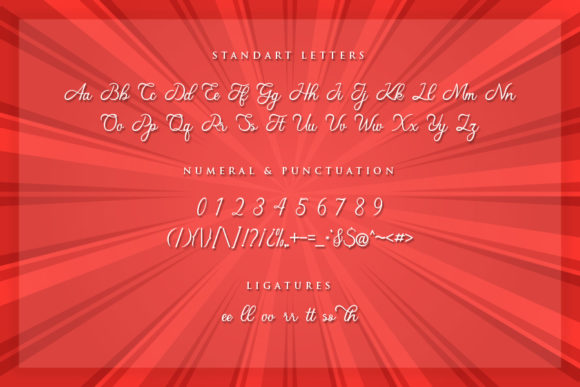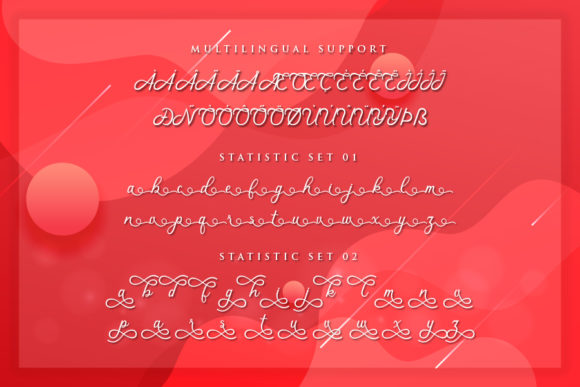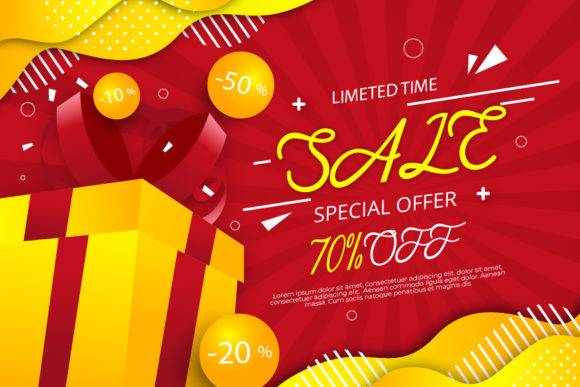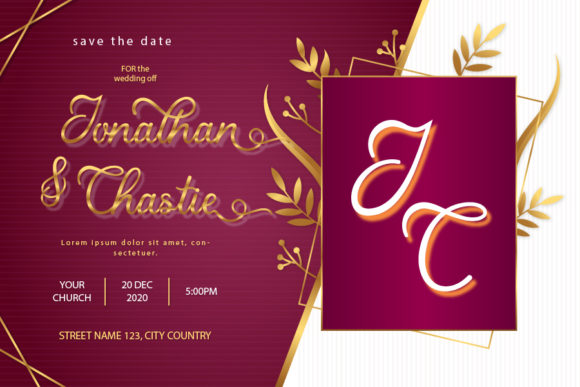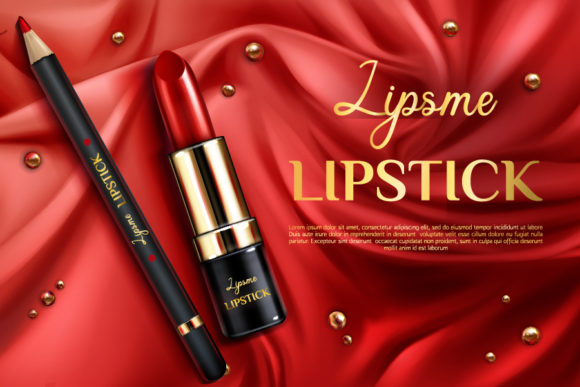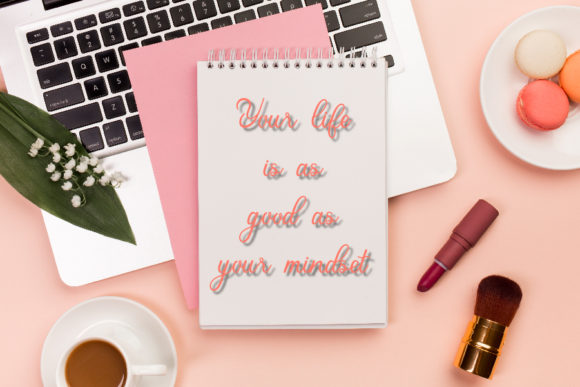
The Designer’s Delight: Anantha Font
I’ll never forget the time I was working on a project for a client who needed a custom logo design. I had spent hours brainstorming ideas, sketching out concepts, and refining my designs. But as I was about to finalize the logo, I realized that I was stuck on one thing: the font. I wanted something that was elegant, yet playful; something that would capture the essence of my client’s brand. And then, I stumbled upon Anantha.
What is Anantha Font?
Anantha is a beautiful handwritten font, suitable for a large variety of designs. Its versatility makes it perfect for products such as handcraft, product packaging, quotes, product design, craftsmen, labels, photography, watermarks, logos, branding, and more. One of the best things about Anantha is that it’s PUA encoded, which means you can access all of the glyphs and swashes with ease!
- ✨ Elegant and sophisticated, yet playful and fun
- ✅ Highly versatile and adaptable to different design contexts
- 💫 Beautifully crafted glyphs and swashes that add a touch of personality to any design
- 🔍 PUA encoded for easy access to all glyphs and swashes
While Anantha is an amazing font, there are a few things to keep in mind. For example, ⚠️ some users have reported issues with kerning, particularly when using the font at smaller sizes. Additionally, 🤔 the font may not work well with certain languages or non-English characters.
The Story Behind Anantha
Anantha was designed by a talented type designer who’s passionate about creating beautiful, functional fonts. The story goes that the designer was inspired by the elegance and sophistication of traditional handwritten scripts, and wanted to create a font that would capture the essence of these classic styles. With Anantha, the designer aimed to create a font that’s both elegant and playful, perfect for a wide range of design applications.
A: PUA (Private Use Area) encoding is a way of encoding fonts that allows designers to access additional glyphs and swashes that aren’t part of the standard Unicode character set.
Q: Is Anantha a sans-serif font?
A: No, Anantha is a handwritten script font with a distinctive, cursive feel.